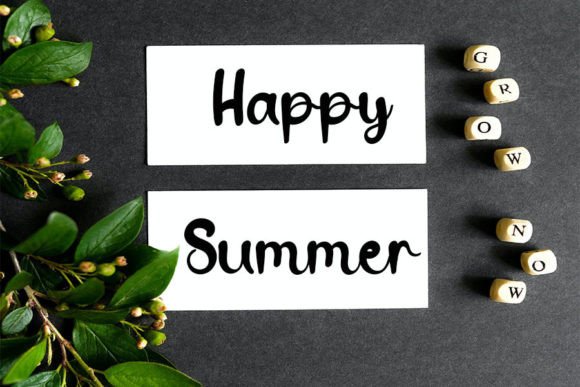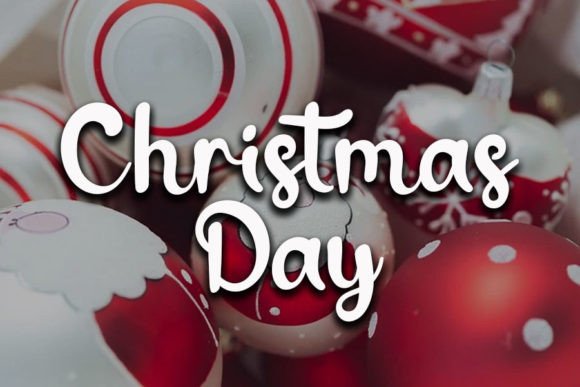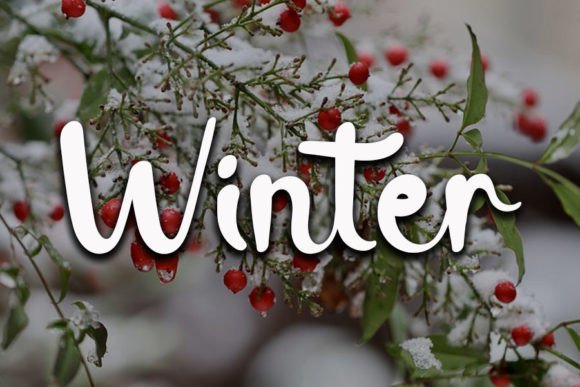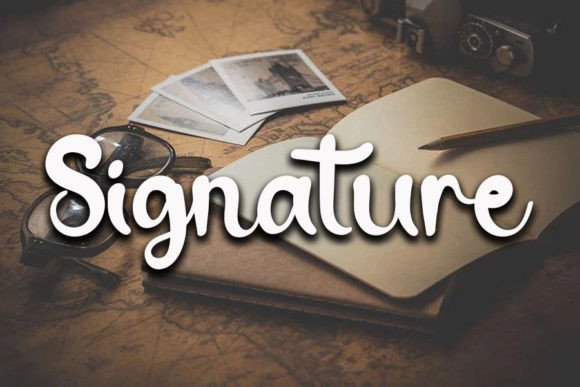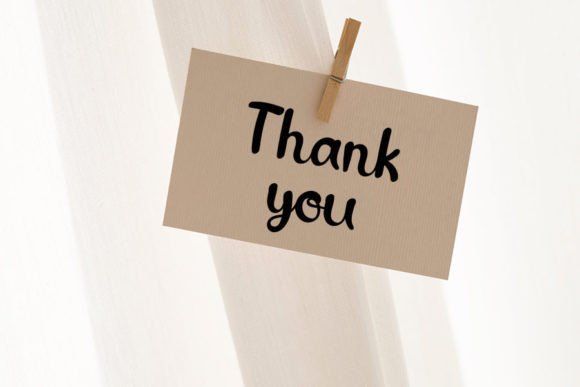
Anastasya Font
About Anastasya Font
Anastasya Font is a magical handwritten script thoughtfully designed with a blend of elegance and playful quirkiness. Its clean and smooth strokes make it perfect for a wide range of creative projects including logos, branding, social media graphics, and crafty DIY designs. Anastasya adds a unique personality and charm to every project, helping your work stand out.
Elegant and Quirky Handwritten Design
Anastasya features flowing letterforms combined with subtle quirky elements, creating a font that feels both polished and fun. This balance of sophistication and whimsy makes it a versatile choice for formal and casual projects alike.
Ideal Uses for Anastasya Font
This versatile font is perfect for:
• Logos and brand identities
• Social media posts and marketing graphics
• DIY crafts and handmade projects
• Wedding invitations and event stationery
• Personalized gifts and packaging
Anastasya enhances the creativity and charm of diverse design applications.
Why Choose Anastasya Font?
Designers love Anastasya for its:
• Magical, elegant, and quirky handwritten style
• Clean, smooth, and readable letterforms
• Versatility across print and digital media
These features make Anastasya a practical and stylish font choice.
Add Magic and Personality to Your Designs
Typography influences the mood and feel of your project. Anastasya adds magic, elegance, and a playful personality, helping your designs connect with audiences in a memorable way. Whether for branding, events, or crafts, this font elevates your creative vision.
In conclusion, Anastasya Font is an elegant and quirky handwritten script perfect for designers seeking a magical and unique font. Add Anastasya to your font collection to create charming and memorable designs.